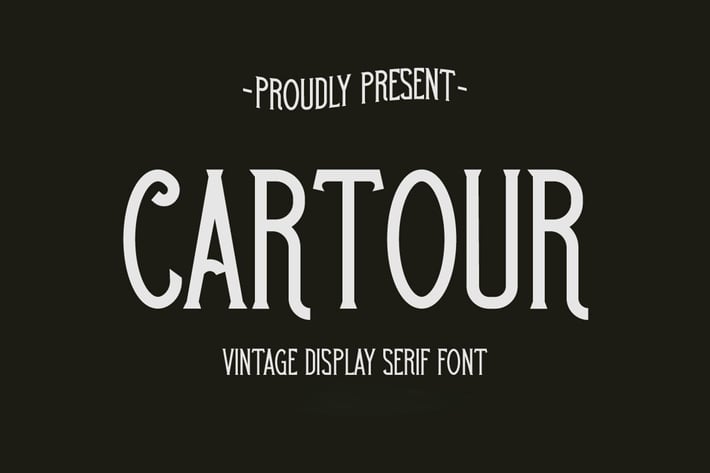
Cartour – Vintage Display Serif Font
Cartour is a vintage-inspired serif display font that brings elegance, heritage, and personality to your designs. With its classic curves and refined serifs, it evokes timeless sophistication—perfect for branding, product packaging, editorial layouts, and more.
Whether you're crafting a logo or a bold headline, Cartour delivers a distinguished and nostalgic touch.
Key Features:
- Elegant serif display with vintage influence
- Great for packaging, branding, and headlines
- High contrast for visual impact and readability
- Ideal for editorial and classic design aesthetics
- Uppercase letters, numbers, and punctuation
- Clean kerning and professionally spaced
Cartour blends tradition with charm to elevate your vintage-inspired design work.
Enhance your projects with Cartour – a perfect blend of vintage charm and modern display typography.